Hello everyone! I was reading when noticed something attractive in this font. Now I intend to use it in my work. Would you be so kind as to tell me what is its name?
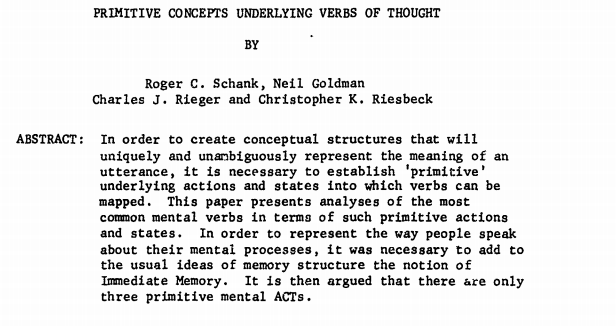
It looks a bit like "bohemian typewriter’
This is a typewritten sample, not typeset. It looks like it was typed on an IBM Selectric typewriter with a Prestige Elite or Prestige Pica type ball. More at Luc Devroye’s page (fourth and fifth samples from bottom):